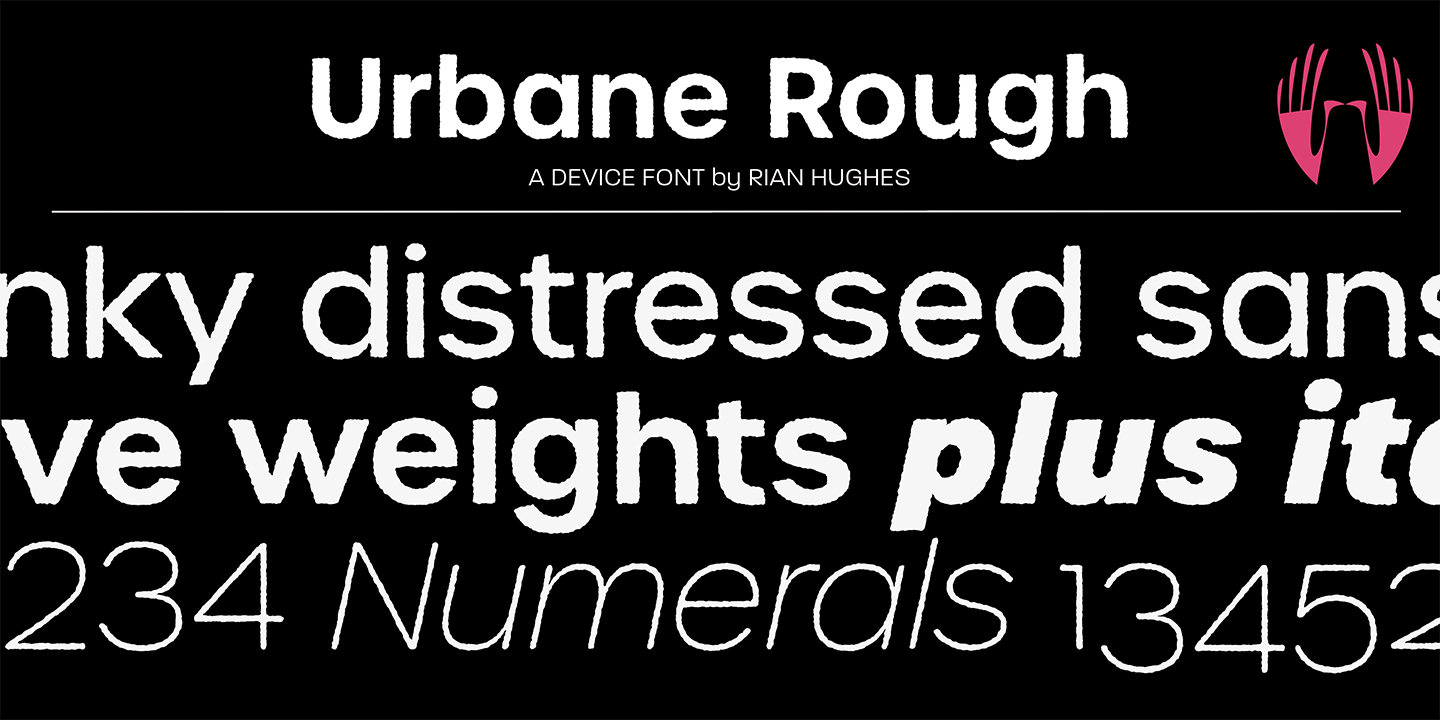
Urbane Rough Font is perfect for industrial design studios, urban architecture firms, concrete construction branding, raw material packaging, street art galleries, underground music venues, modern loft signage, and contemporary city lifestyle campaigns. This edgy typeface excels in applications where urban sophistication and raw industrial aesthetics are essential.
What makes Urbane Rough Font so exciting is its striking ability to merge metropolitan sophistication with gritty urban textures through distressed letterforms that capture the authentic character of modern city living and industrial design culture. The font features weathered character shapes with concrete-inspired textures and metropolitan styling that evoke images of exposed brick walls, steel beams, and sophisticated urban environments. Its city-focused design philosophy combines raw industrial authenticity with refined urban elegance, making it perfect for contemporary brands seeking to convey metropolitan credibility, architectural sophistication, and connection to modern urban lifestyle and industrial design communities.
Urbane Rough Font belongs to the distressed sans-serif font family, specifically designed for urban and industrial-themed branding applications. This typeface family emphasizes sophisticated roughness through city-inspired texturing and metropolitan character elements, ensuring authentic urban presentation across various architectural and contemporary design-focused projects.
Embrace metropolitan sophistication with Urbane Rough Font Free Download, a typeface that embodies the refined edge of modern urban design and industrial sophistication. This dynamic font delivers exceptional character for urban applications, featuring comprehensive character sets with architectural symbols and industrial punctuation marks that capture the essence of contemporary city culture and design innovation. Its expertly distressed letterforms maintain excellent readability while preserving the authentic urban aesthetic across various sizes, from small product labels to massive architectural building signage. The font's distinctive metropolitan personality makes it invaluable for designers creating urban brands, architectural materials, and contemporary content where conveying sophistication, edge, and modern city authenticity is crucial for connecting with urban professionals and design-conscious audiences seeking cutting-edge metropolitan experiences.